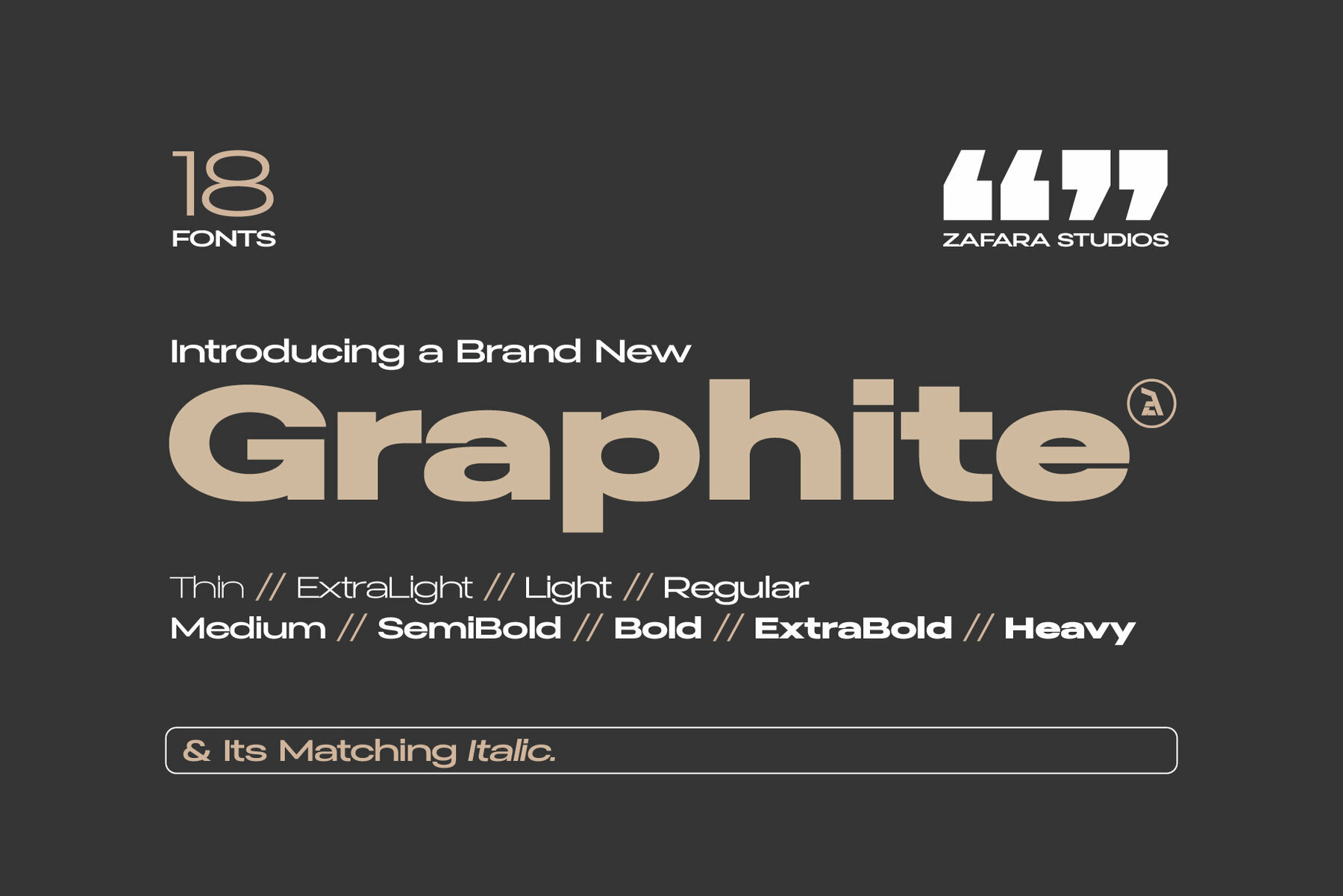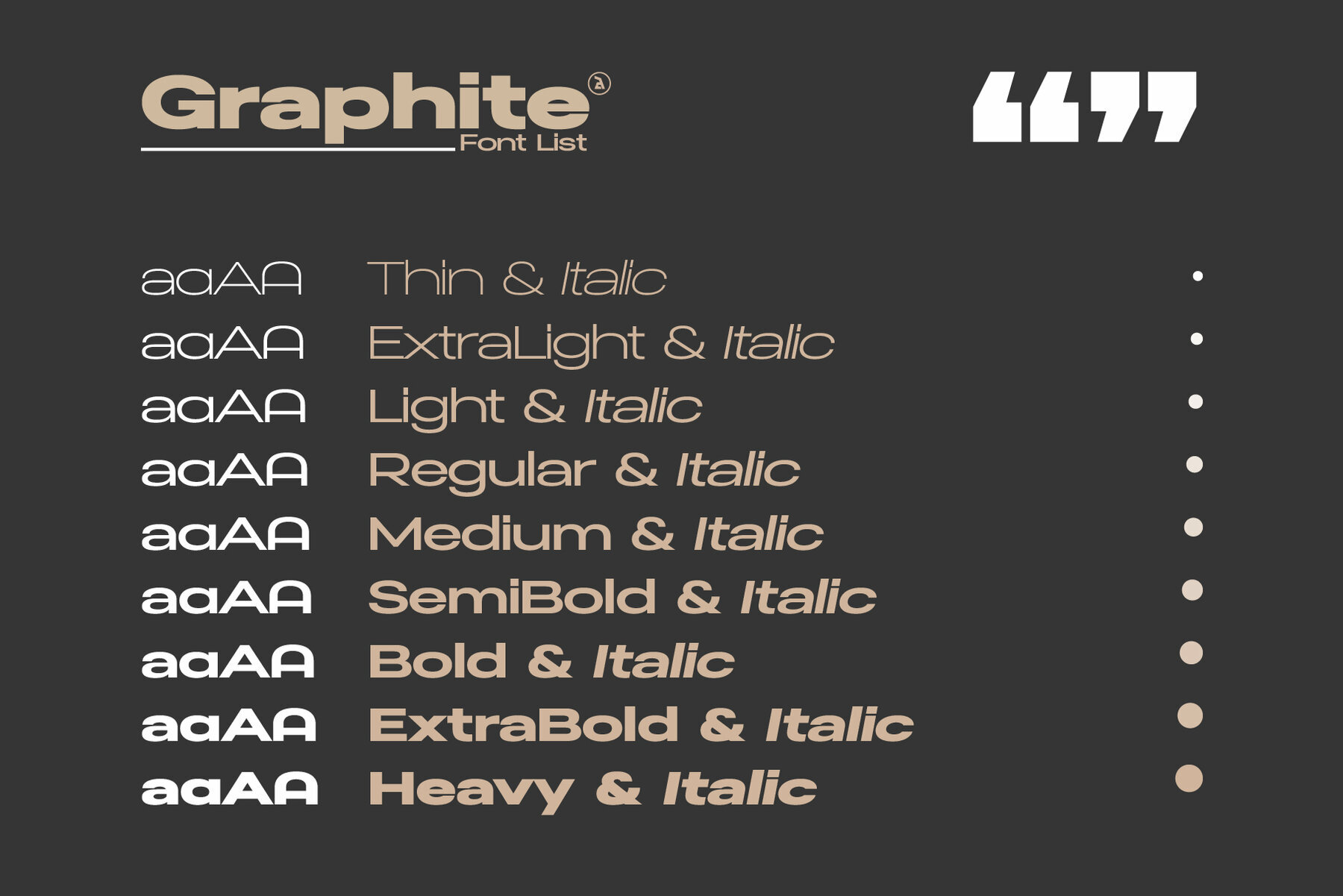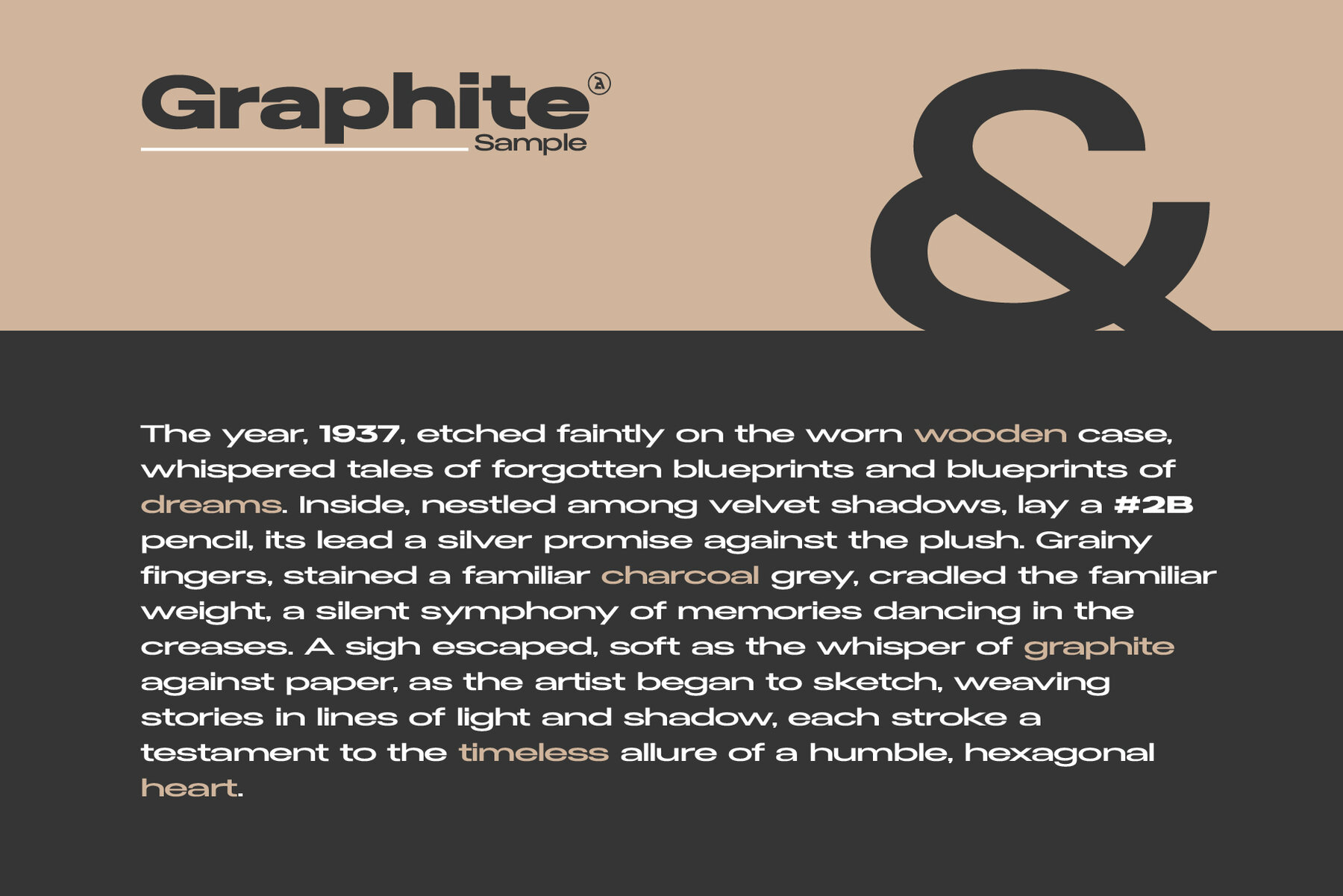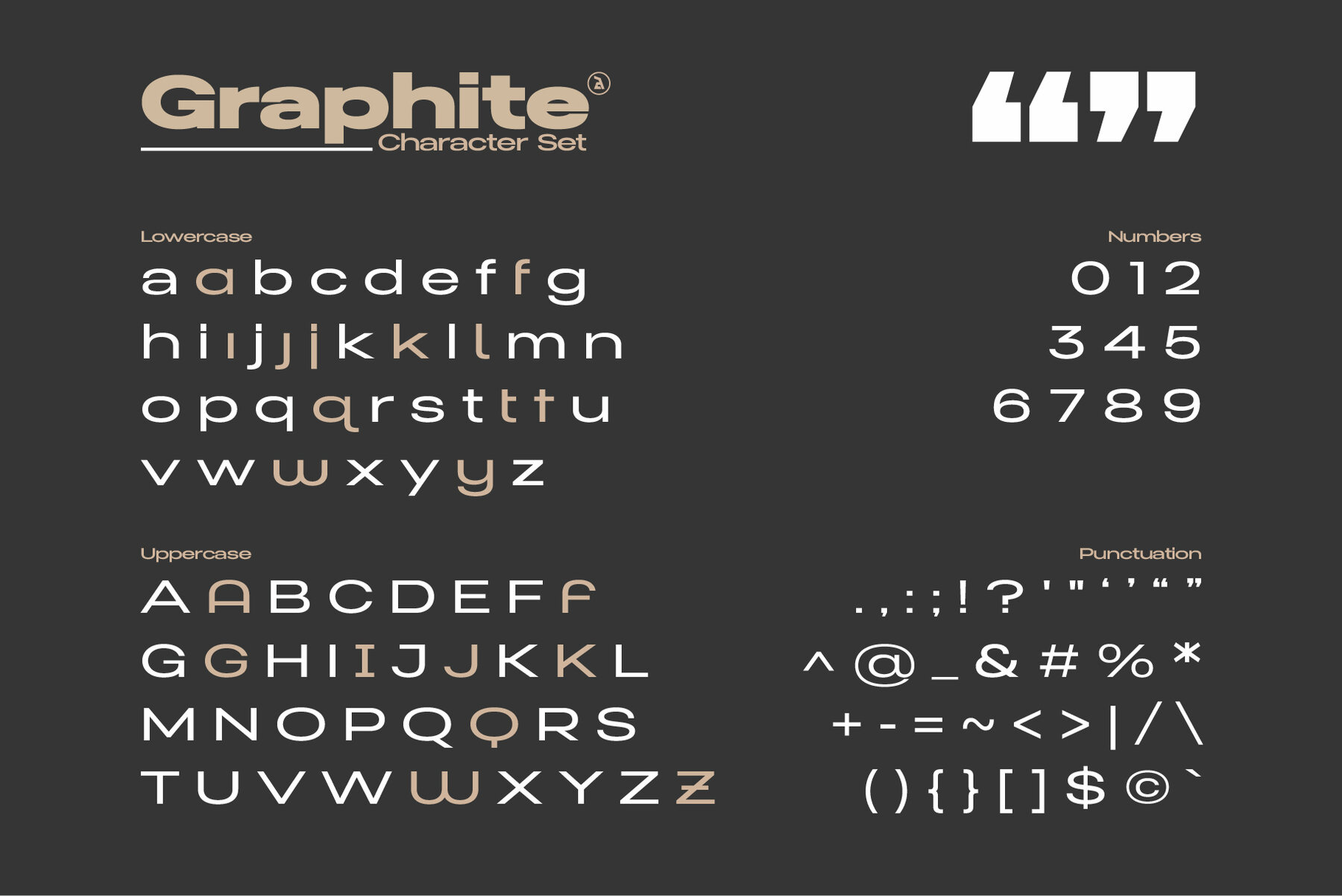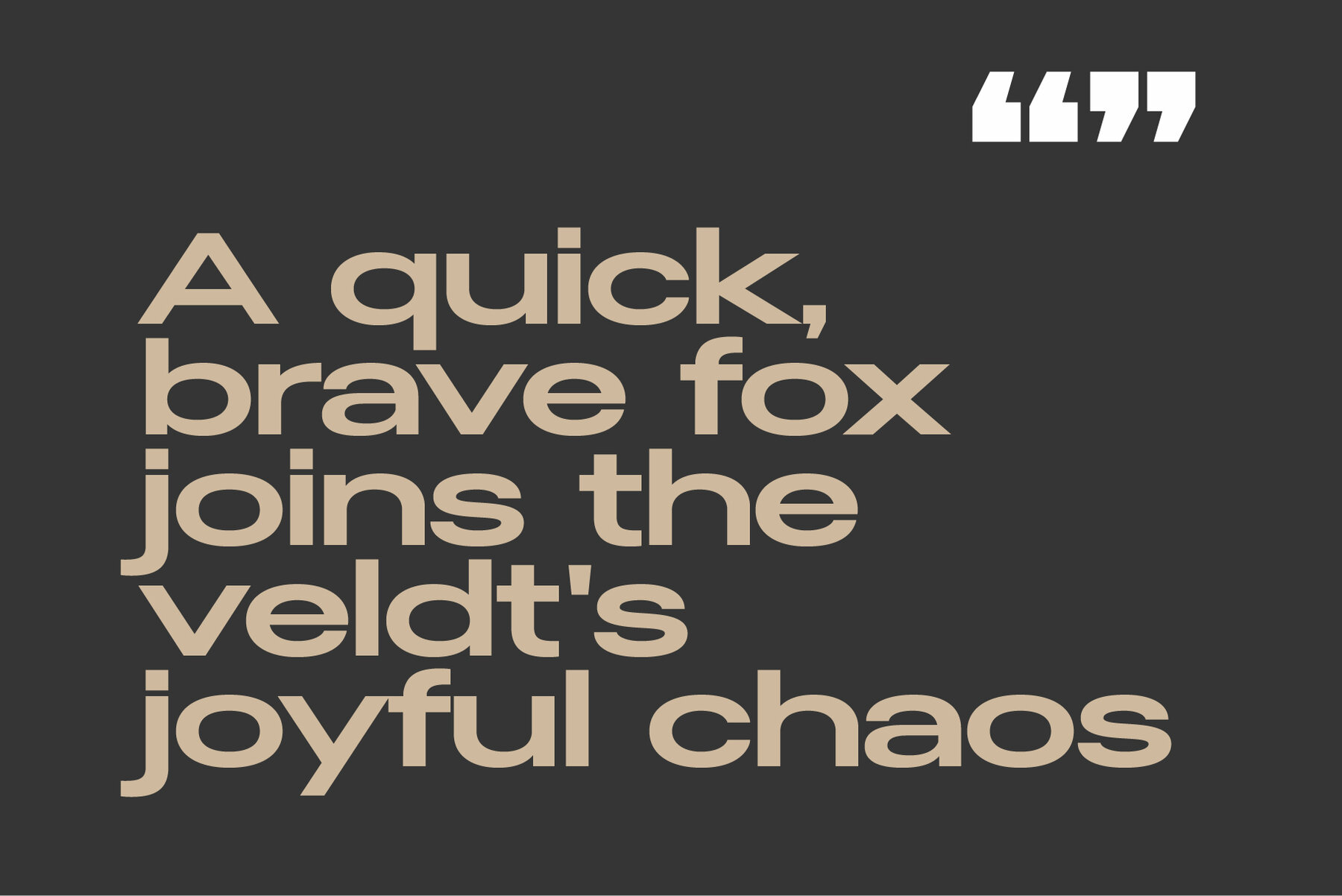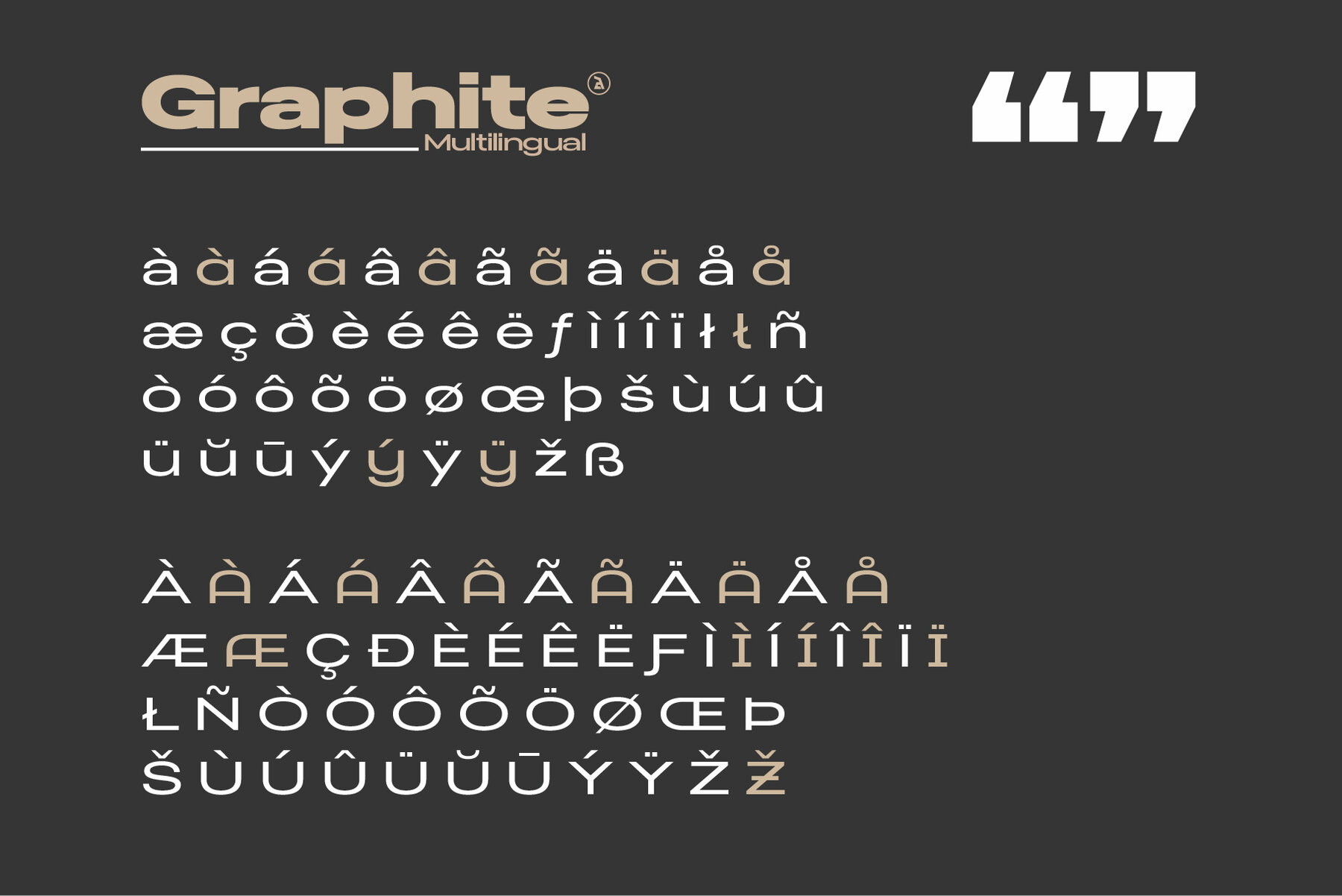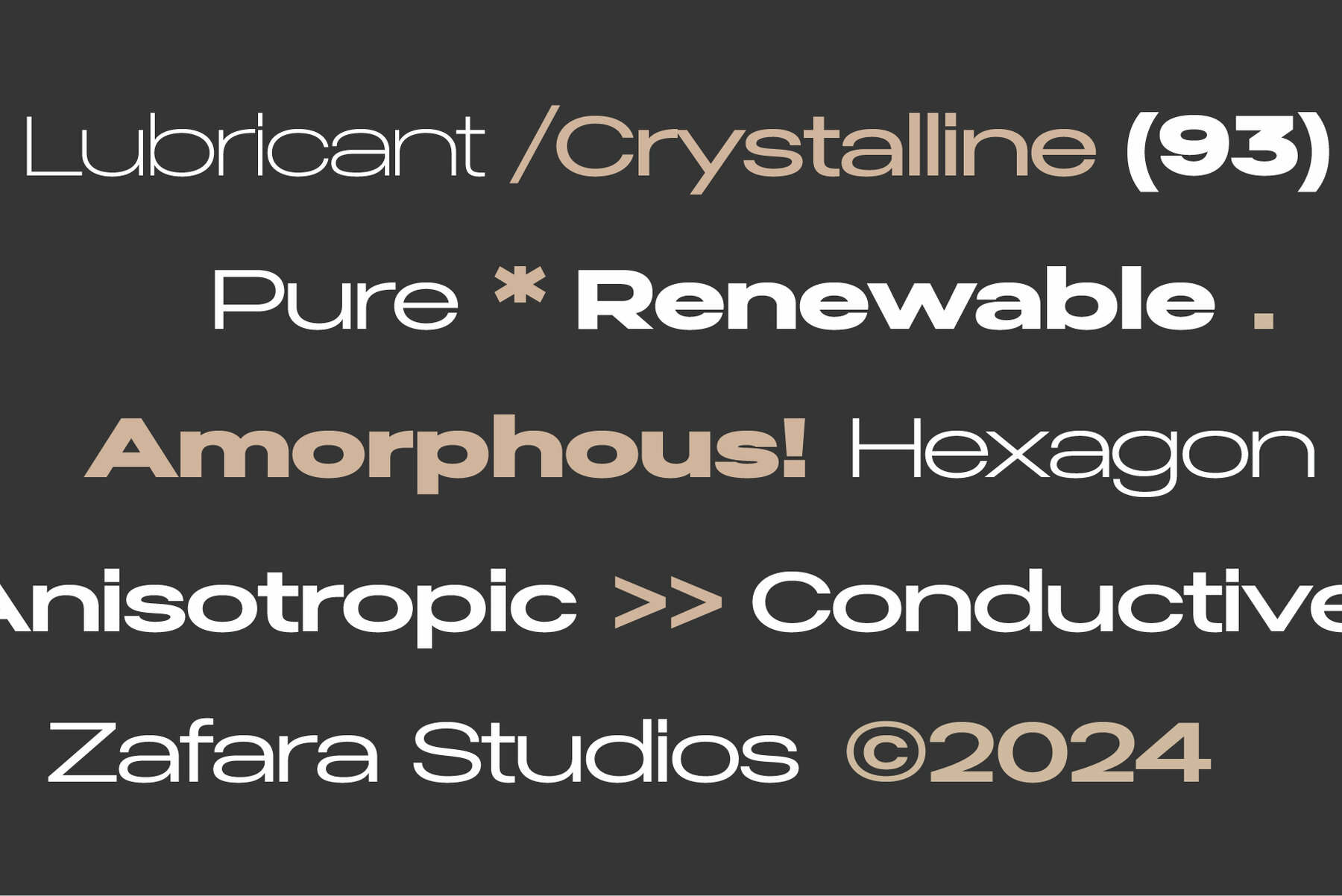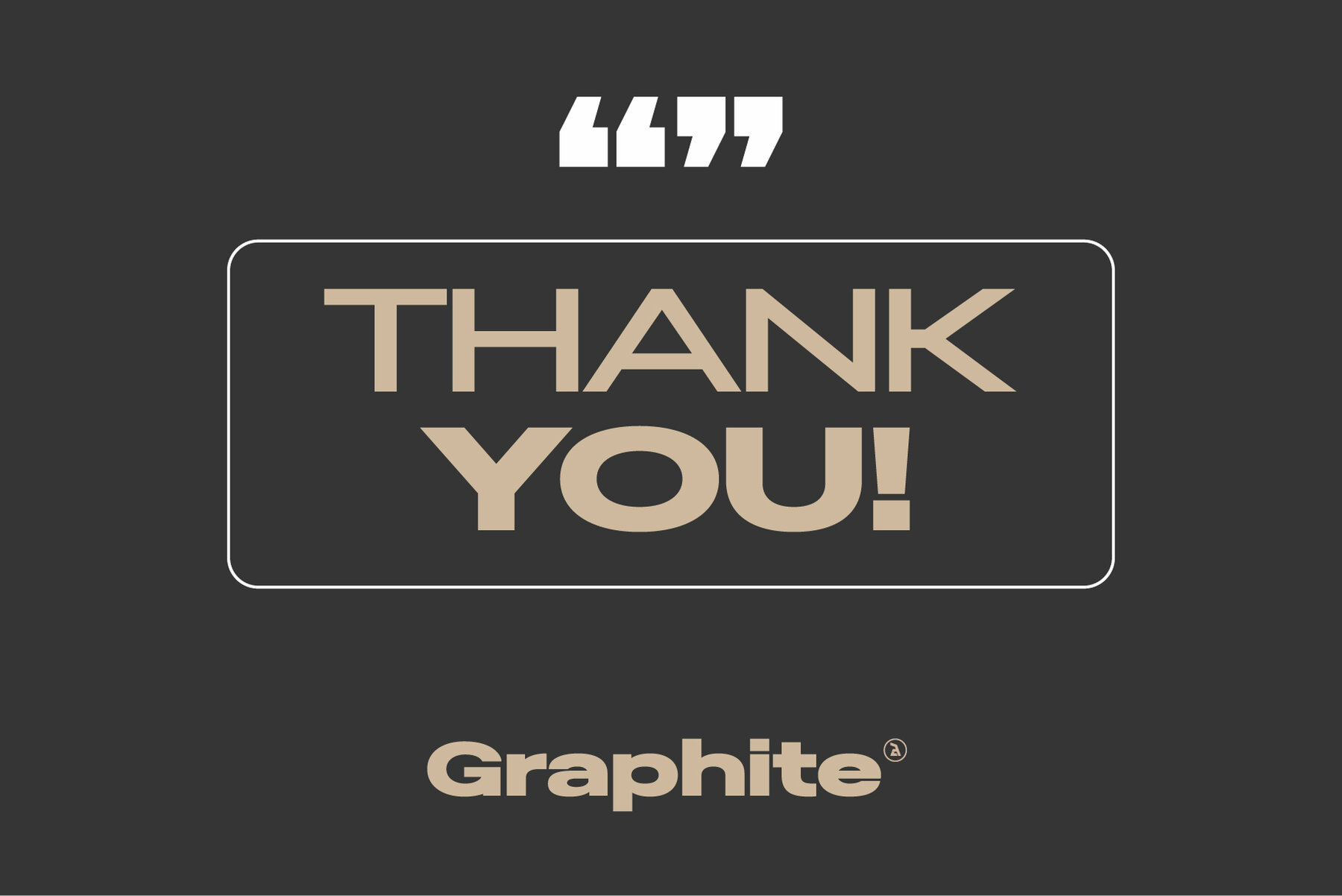
Graphite Font
Graphite is a wide sans serif font family designed with high contrast and visual clarity in mind. Arranged in a tight but balanced composition, it conveys a sense of intimacy and artistic expression. This font can be used for headlines, titles, logotypes, magazines, and other types of text that need to be visible and easy to read. The details: